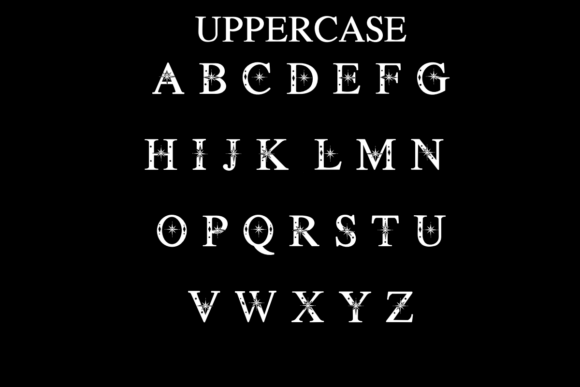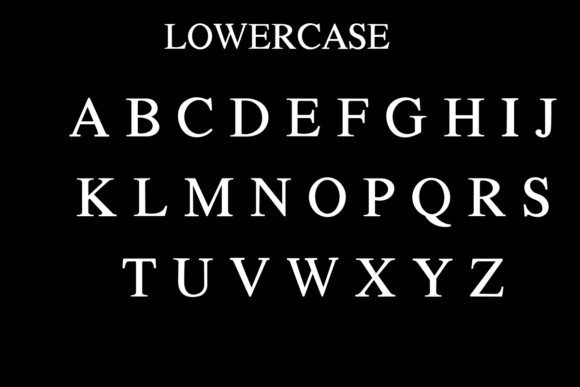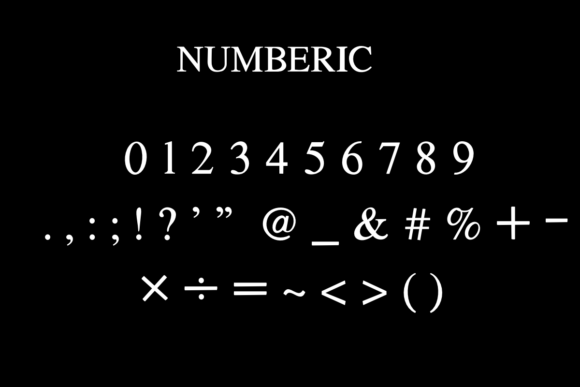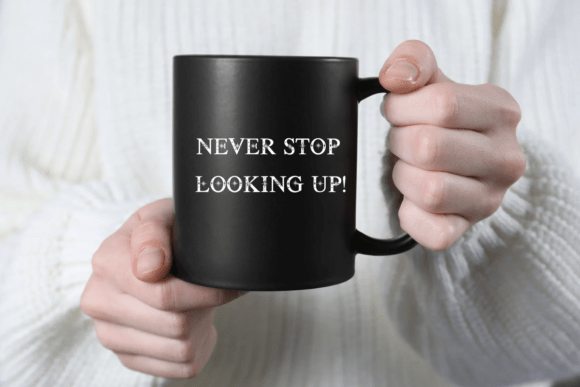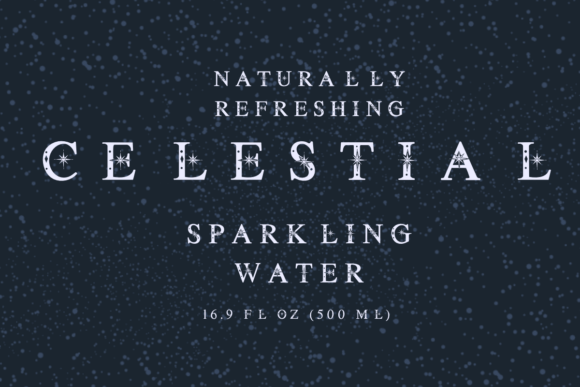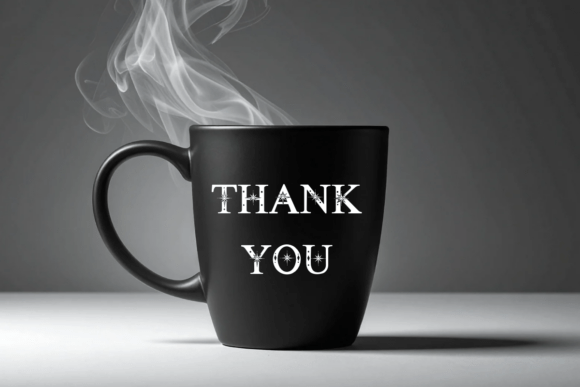
Introducing Divine Love Font: A Celestial Typeface of Mystical Elegance
Are you a designer or crafter looking for a font that embodies the essence of luxury, mysticism, and vintage sophistication? Look no further than Divine Love Font, a high-contrast decorative serif font that exudes an aura of elegance and refinement. With its intricate celestial detailing, sturdy traditional serif structure, and ornate Victorian-style flourishes, this font is perfect for creating occult-inspired branding, luxury tarot card decks, mystical editorial headers, and high-end boutique logos.
The Design of Divine Love Font
Divine Love Font is built on a sturdy, traditional serif structure with thick stems and sharp terminals, providing a solid foundation for its intricate design. The defining feature of this font is the celestial detailing embedded within the letterforms. Each character is adorned with glowing starbursts and diamond-shaped accents, often centered within the counters or along the vertical axes. These delicate details add a touch of magic and whimsy to the font, making it perfect for designs that require a sense of mysticism and wonder.
Key Features of Divine Love Font
- High-contrast decorative serif font: Divine Love Font features a high-contrast design with thick stems and sharp terminals, creating a sense of elegance and sophistication.
- Intricate celestial detailing: Each character is adorned with glowing starbursts and diamond-shaped accents, adding a touch of magic and whimsy to the font.
- Ornate Victorian-style flourishes: The font features ornate flourishes that add to its luxurious and mystical feel.
- Sturdy traditional serif structure: The font’s traditional serif structure provides a solid foundation for its intricate design.
Use Cases for Divine Love Font
Divine Love Font is a versatile font that can be used in a variety of design projects, including:
- Occult-inspired branding: The font’s mystical and luxurious feel makes it perfect for branding projects that require a sense of mystery and sophistication.
- Luxury tarot card decks: The font’s intricate design and celestial detailing make it ideal for luxury tarot card decks that require a sense of mysticism and wonder.
- Mystical editorial headers: The font’s elegant and refined design makes it perfect for editorial headers that require a sense of luxury and sophistication.
- High-end boutique logos: The font’s luxurious and mystical feel makes it ideal for high-end boutique logos that require a sense of elegance and refinement.
Why Choose Divine Love Font?
There are many fonts available that claim to offer a sense of luxury and sophistication, but Divine Love Font stands out from the crowd. Here are just a few reasons why:
- Unique design: The font’s intricate celestial detailing and ornate flourishes make it a truly unique and eye-catching design.
- High-quality craftsmanship: The font is crafted with attention to detail and a focus on quality, ensuring that it will look great in any design project.
- Versatility: The font can be used in a variety of design projects, from branding and editorial design to packaging and advertising.
Divine Love Font is a truly unique and elegant font that is perfect for designers and crafters looking to add a touch of luxury and mysticism to their design projects. With its intricate celestial detailing, sturdy traditional serif structure, and ornate Victorian-style flourishes, this font is sure to impress. Whether you’re working on an occult-inspired branding project, a luxury tarot card deck, or a high-end boutique logo, Divine Love Font is the perfect choice.